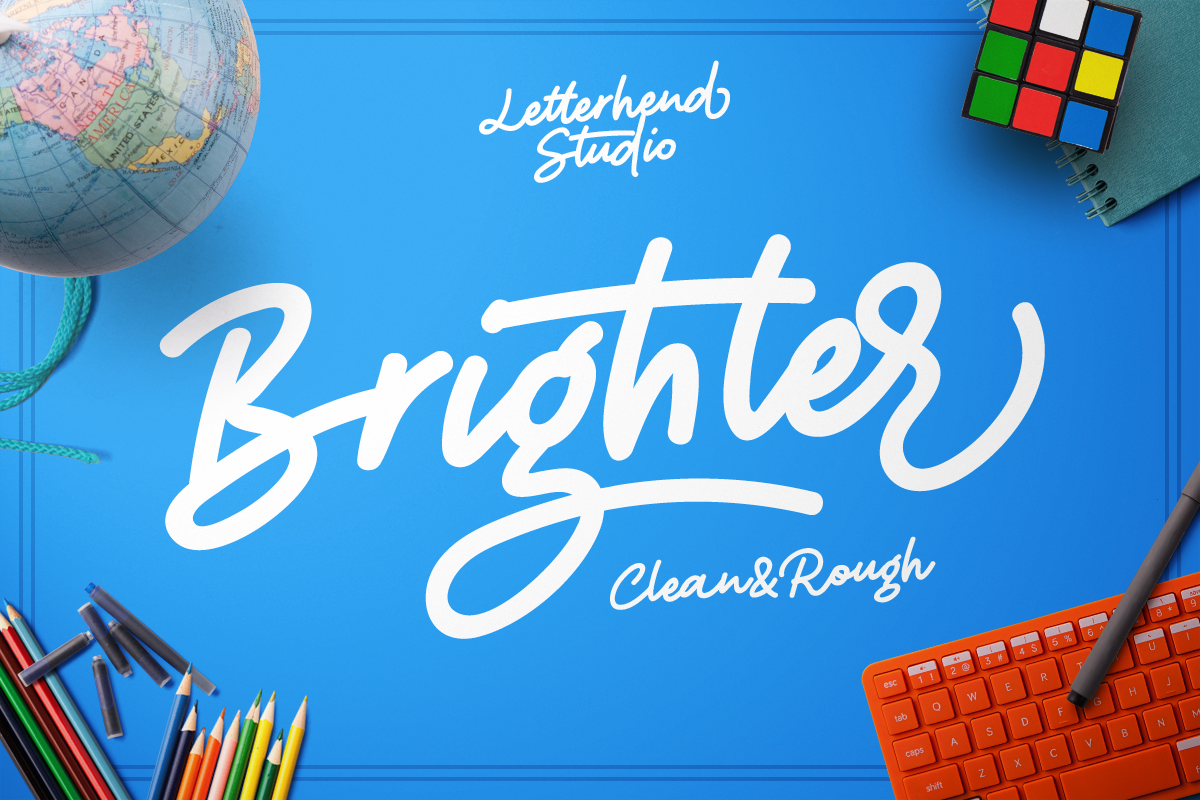
Brighter script
Brighter-Rough
Brighter-Regular
Brighter script is a bold casual and fun script that stands out from the crowd. Consist of two types, a regular and rough. Perfect to be used especially for logo type, signature, photography, quotes, apparel design, and any design needs. As usual, the font comes with many opentype features such as ligatures, stylistic set alternate, etc and also support multilingual.